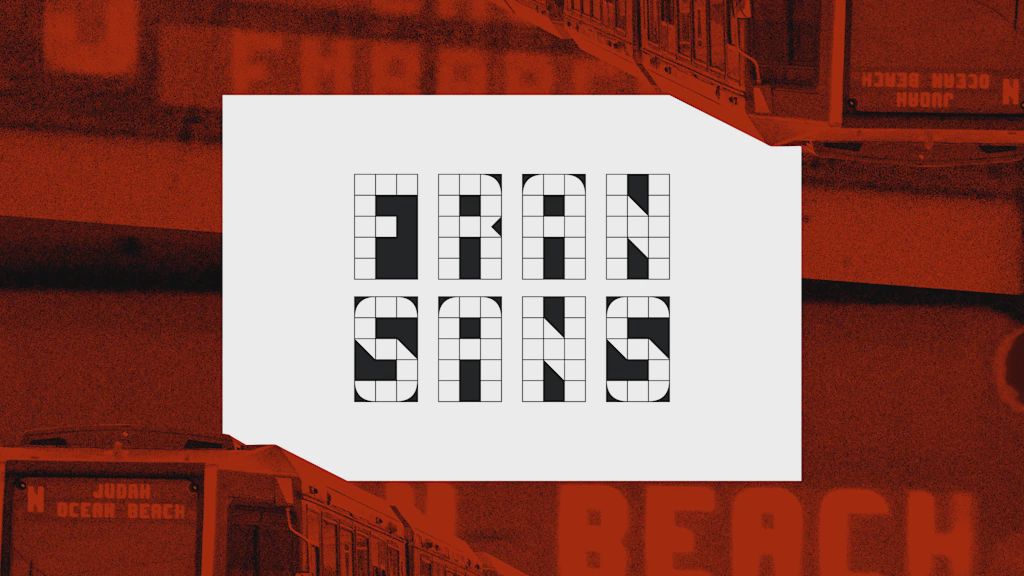
This charming new font is a love letter to San Francisco’s public transit
Fran Sans (get it?) pays homage to the display signs on San Francisco's MUNI trains.